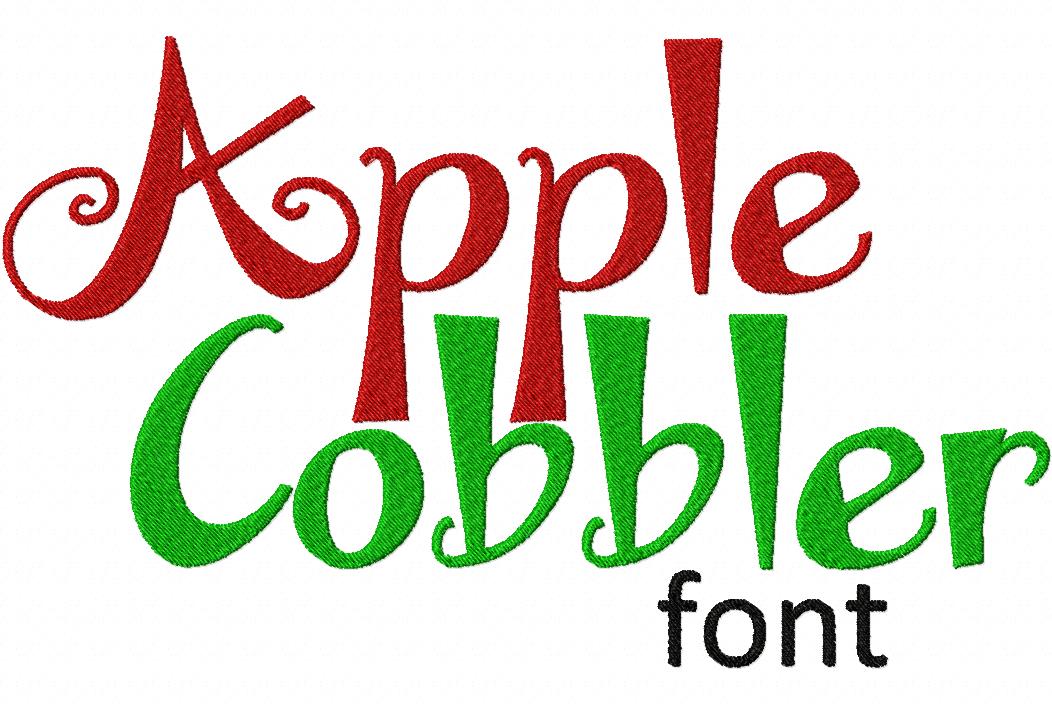
The Apple Cobbler Machine Embroidery Font Set includes Uppercase and Lowercase Letters, Numbers and Bonus Punctuation in all of the following sizes: 1" 2" & 3"
Font Created by Kimberly Geswein and digitized by BlastoStitch.com